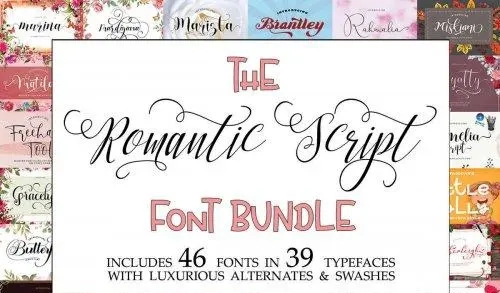
The Romantic Script Font Bundle – 46 Fonts
Introducing The Romantic Script Font Bundle, a carefully curated collection of 46 stunning script fonts designed to add elegance and charm to your projects. This versatile bundle is perfect for a variety of applications, including branding, logos, invitations, and more.
• 46 unique script fonts
• Variety of styles and weights
• Beautifully crafted for readability
Each font in this bundle showcases exquisite curves and flowing lines, making them ideal for both digital and print use. The fonts are suitable for various creative projects, from wedding invitations to elegant branding materials.